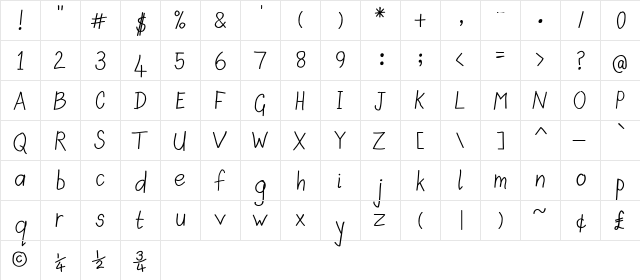
Scrawny Kids Handwriting
| Style | Handwriting |
| Designer | Bree Gorton |
Design Context for Scrawny Kids Typeface
Scrawny Kids has an approachable, lighthearted character — its loose, expressive forms are well-suited to children's content, casual branding, and fun-first design.
Font Pairing: Pairs well with a rounded or humanist sans for body copy, maintaining the friendly tone without relying on Scrawny Kids to carry extended reading.
Pro Tip: Avoid using Scrawny Kids for long passages of text — it works best for headlines, labels, and short calls to action.